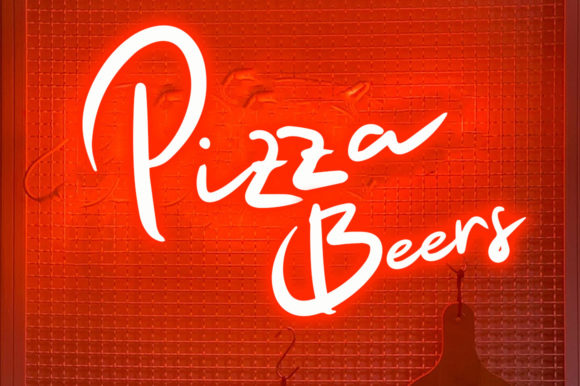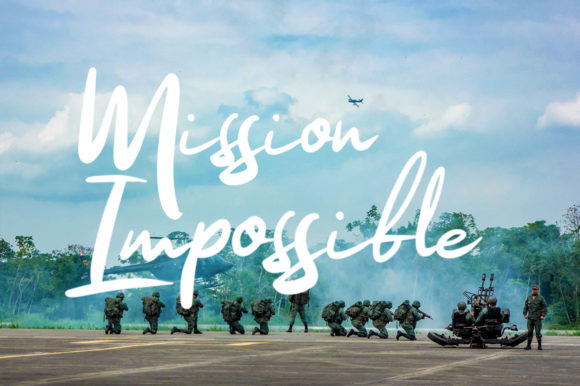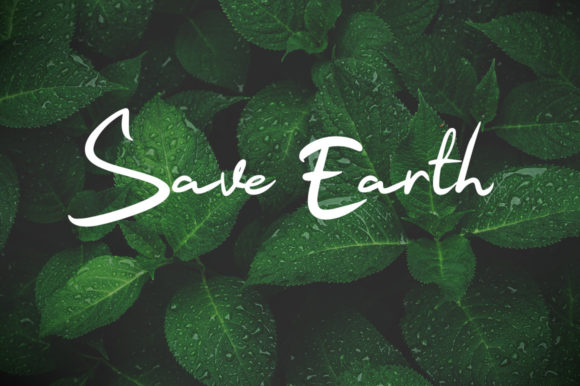
Red Swiss Font
About Red Swiss Font
Red Swiss is a handwritten font that looks like a signature font. It looks stunning on photography designs, wedding invitations, thank you cards, quotes, greeting cards, logos, business cards, and any other design that requires a handwritten touch.